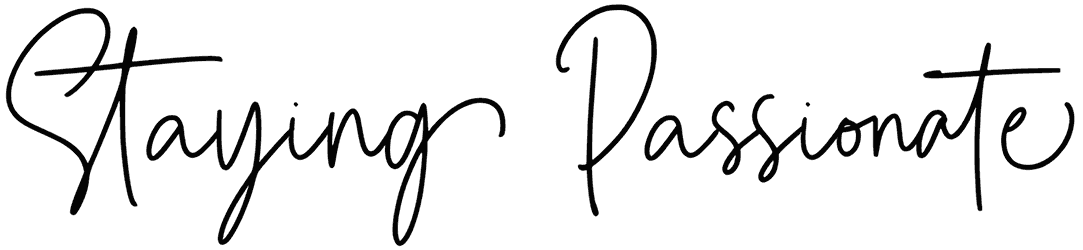
Staying Passionate Font
With the benefit of this script font, bring the fun of revealing drawing layouts from anything. Style your content and push a sweet catchy setup with the help of this Staying Passionate. Since all letters are linked to the earlier ones, it might be tricky to read.
This handwritten font makes up for its lack of numbers by igniting a vibrant and charming power among all viewers. TV programs, posters, social media posts, apps, and greeting cards are significant places for against.
Staying Passionate – A Script Font
A beautifully handcrafted font that’ll make your guests sing and elevate your projects! Every stroke, and curve was created to entice happiness and elegance. Use it to create standout headings, promote your online sales, Instagram quotes, and even printed materials like business cards, t-shirts, or invitations.